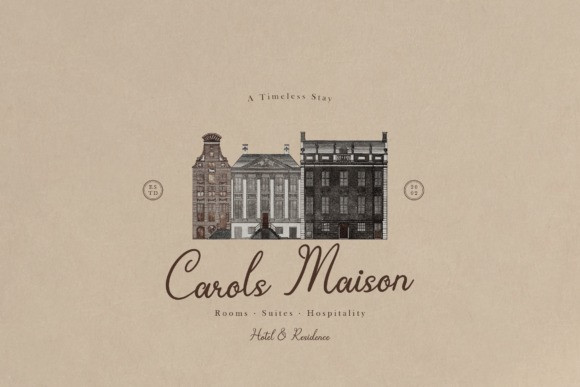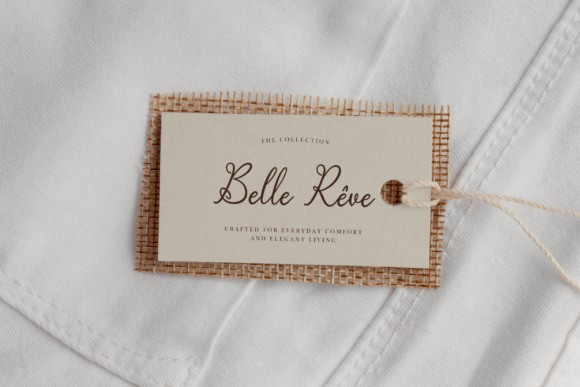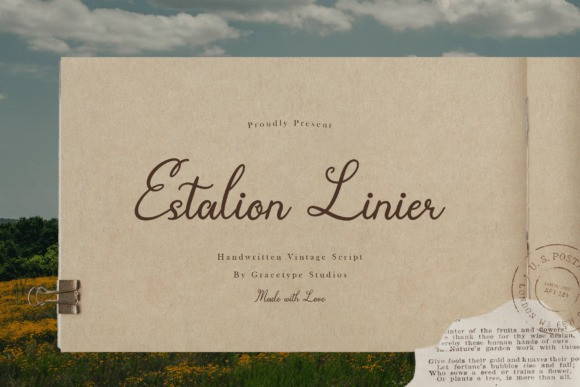
Estalion Linier Script Font a beautiful handwritten vintage script. This font features a relaxed, rhythmic flow with gentle loops and a consistent monoline weight that feels authentically “made with love.” It is an ideal companion for vintage-themed wedding invitations, rustic packaging, historical scrapbooking, and personal branding projects. With its warm, approachable personality, Estalion Linier brings a sense of timeless storytelling to any design.